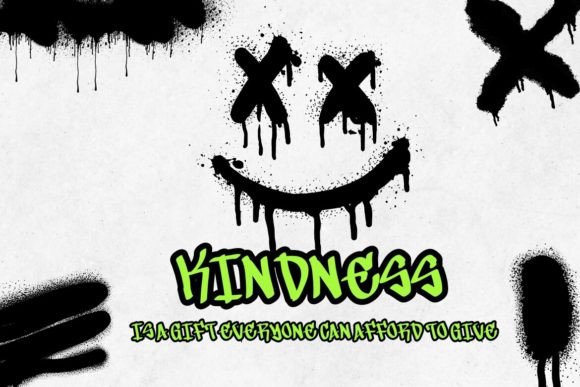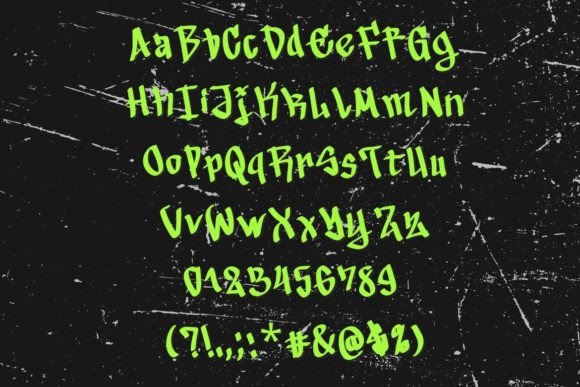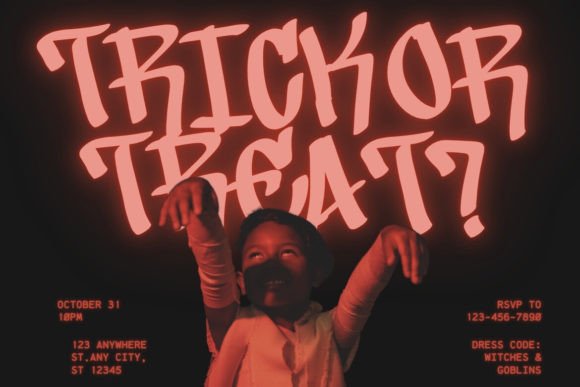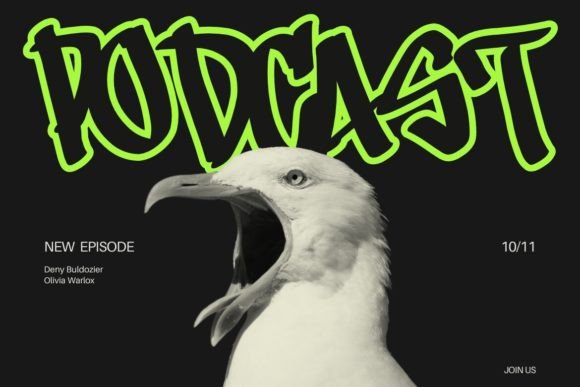
Gedrow Font: Unleash Your Creativity with this Graffiti Masterpiece
Are you a designer, craftsperson, or simply someone who loves to express themselves through art? Look no further than the Gedrow Font, a newly introduced Graffiti font that is perfect for a wide range of creative projects. In this article, we’ll dive into the world of Gedrow, exploring its features, benefits, and uses, and show you how this font can take your branding, logos, invitations, magazines, product packaging, and more to the next level.
What is Gedrow Font?
Gedrow is a unique and stylish Graffiti font designed to add a touch of urban flair to your designs. Its bold, edgy, and artistic style makes it perfect for creating eye-catching logos, posters, and other visual materials. With its rough, hand-drawn texture, Gedrow Font gives your text a raw, street-art feel that’s sure to grab attention.
Key Features of Gedrow Font
- Unique Graffiti Style: Gedrow Font boasts a distinctive Graffiti style that’s perfect for creating bold, eye-catching designs.
- High-Quality Design: With its high-quality design, Gedrow Font ensures that your text looks sharp and professional, even at large sizes.
- Multilingual Support: Gedrow Font supports multiple languages, making it a great choice for designers working on international projects.
- Easily Customizable: With Gedrow Font, you can easily customize your text to fit your brand’s style and aesthetic.
Benefits of Using Gedrow Font
So, why choose Gedrow Font for your design projects? Here are just a few benefits of using this amazing Graffiti font:
- Adds a Touch of Urban Flair: Gedrow Font adds a unique, urban touch to your designs, making them stand out from the crowd.
- Perfect for Branding and Logos: With its bold, eye-catching style, Gedrow Font is perfect for creating memorable logos and branding materials.
- Increases Creativity: Gedrow Font’s unique style and versatility inspire creativity, helping you to think outside the box and come up with innovative design solutions.
- Time-Saving: With Gedrow Font, you can create professional-looking designs in no time, saving you time and effort.
Uses of Gedrow Font
Gedrow Font is a versatile font that can be used for a wide range of design projects, including:
- Branding and Logos: Create memorable logos and branding materials that stand out from the crowd.
- Invitations and Posters: Add a touch of urban flair to your invitations, posters, and other print materials.
- Magazines and Publications: Use Gedrow Font to add a bold, eye-catching touch to your magazine and publication designs.
- Product Packaging: Create eye-catching product packaging that stands out on store shelves.
- Merchandise and Apparel: Design unique and stylish merchandise and apparel that showcases your brand’s personality.
Tips for Using Gedrow Font
Here are a few tips for getting the most out of Gedrow Font:
- Experiment with Different Colors: Gedrow Font looks great in a variety of colors, so don’t be afraid to experiment and find the perfect hue for your design.
- Mix and Match with Other Fonts: Combine Gedrow Font with other fonts to create unique and interesting typography.
- Play with Texture and Patterns: Add texture and patterns to your design to give it a more dynamic, urban feel.